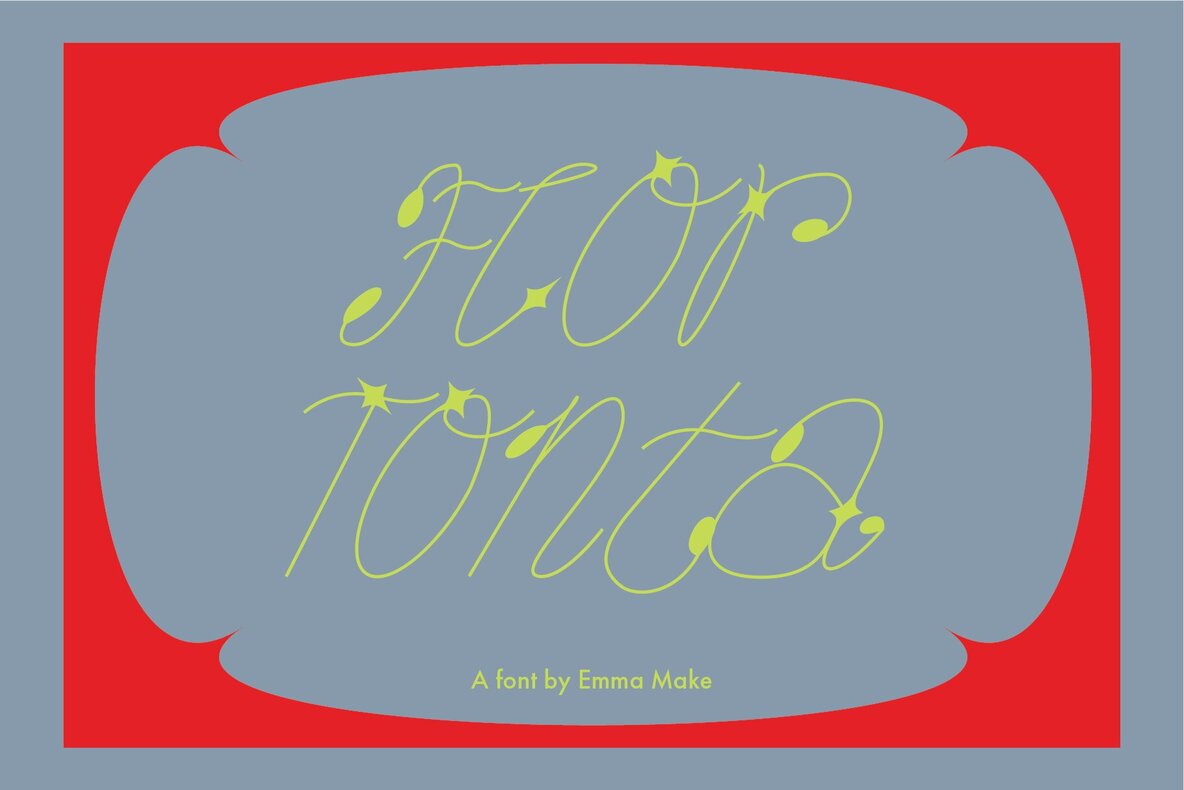
Flor Tonta Cursive Font Font
Flor Tonta: A Playful Cursive for Creative Designs
Flor Tonta invites you to explore the world of whimsical typography. This cursive font perfectly balances playfulness with elegance, making it an ideal choice for those with a creative spirit. Crafted with precision, its vector-based design ensures seamless scalability, catering to projects that range from eye-catching posters to captivating film credits.